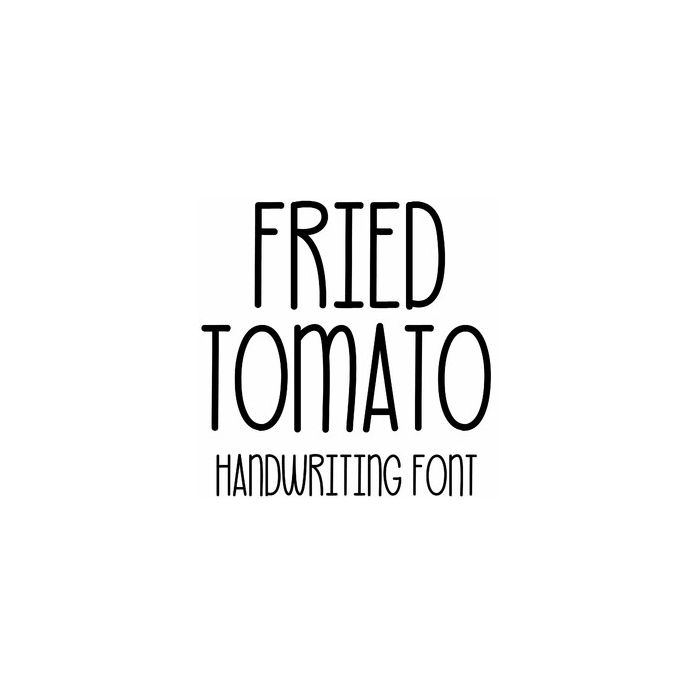
Fried Tomato is a cute all caps handwriting font for summer kitchen and garden crafts, cards, signs, gifts, labels, planning, and personalization projects. Includes alphabet, numbers, and punctuation.